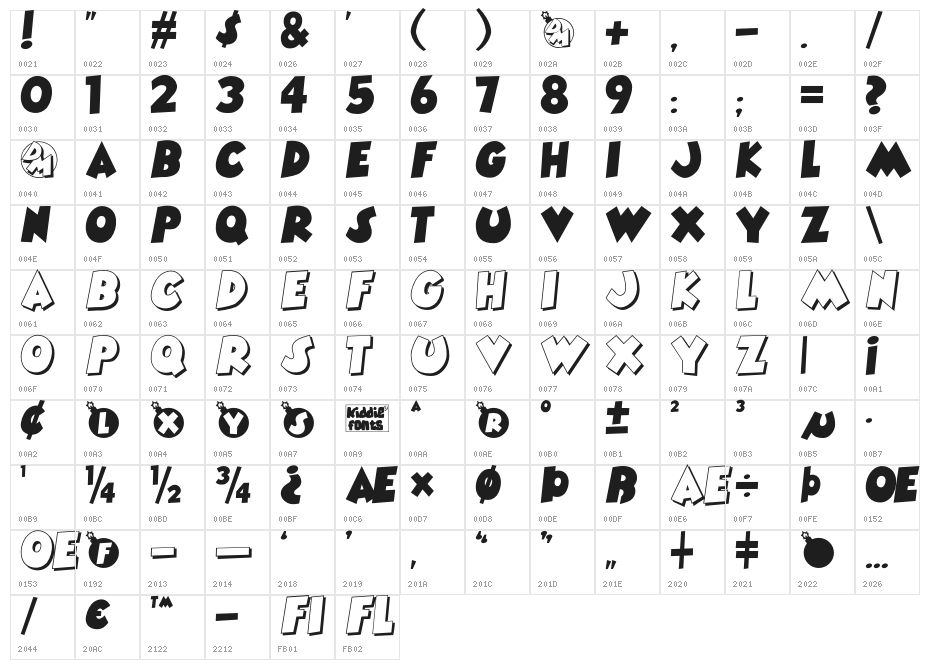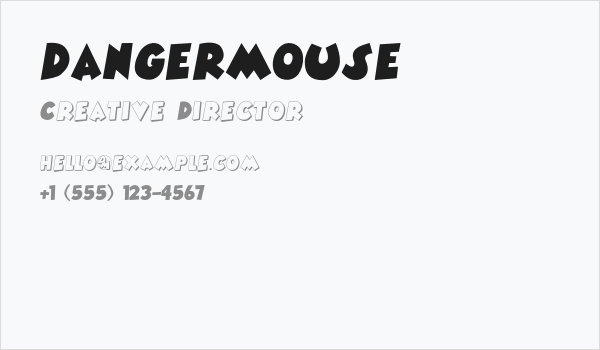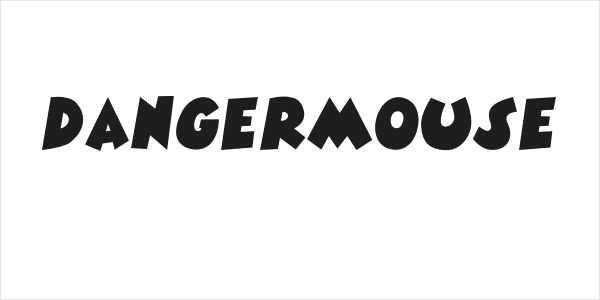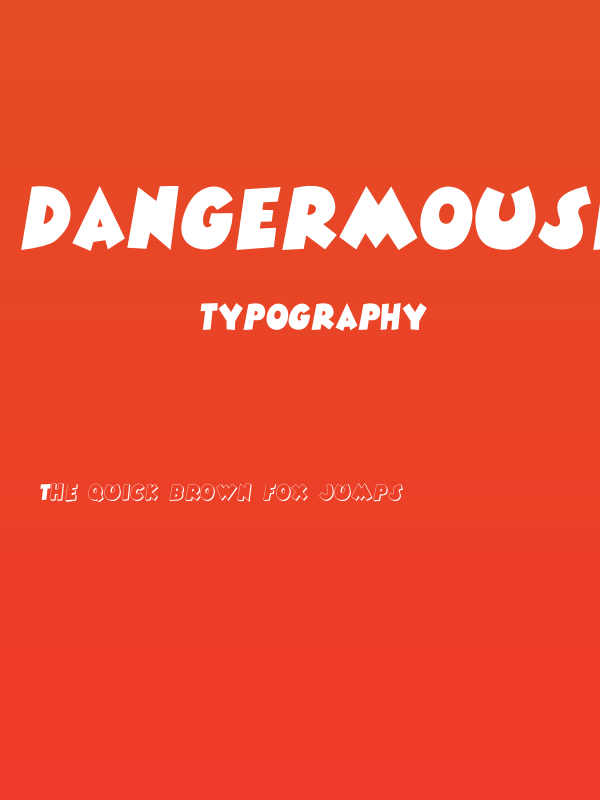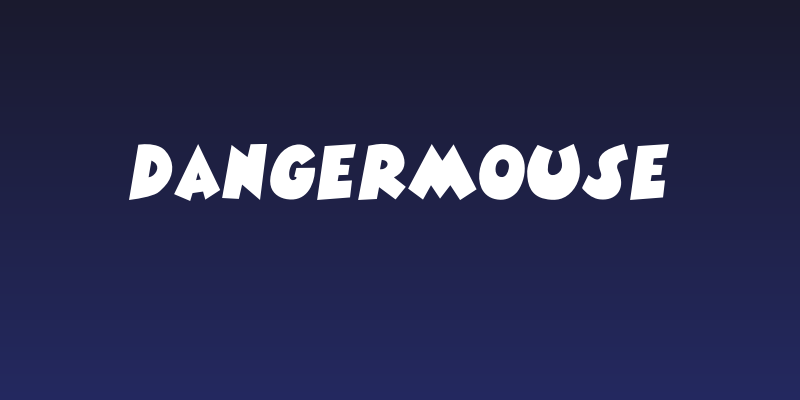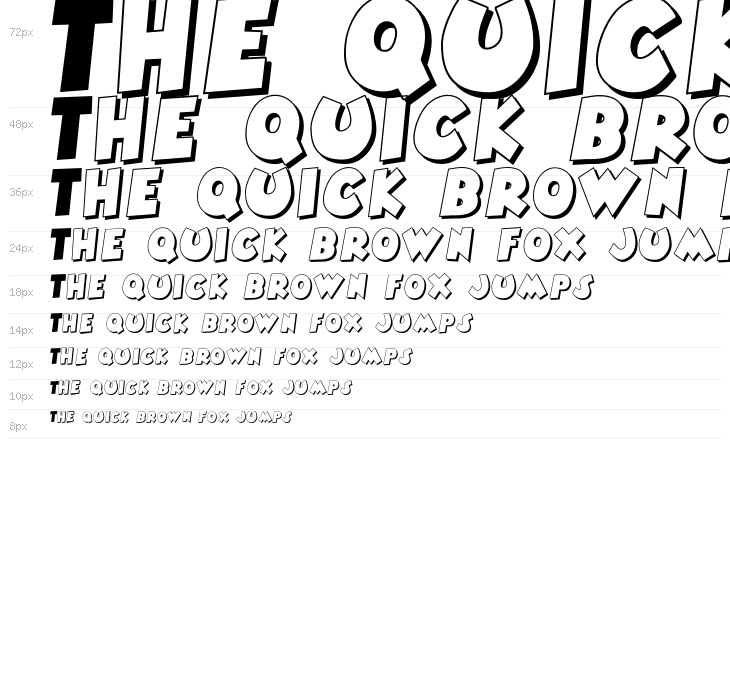
DANGERMOUSE Font
DANGERMOUSE Description
This font features bold, dynamic characters with a playful and energetic style. The uppercase letters are thick and angular, giving a sense of movement and excitement. The lowercase letters maintain a consistent style, complementing the uppercase with a slightly more compact form. Numbers are bold and prominent, ensuring clear readability. Special characters are creatively designed, adding a unique flair to the overall appearance. The font's design is reminiscent of comic book styles, making it ideal for projects that require a fun and engaging visual impact.
| Overall Style | Playful, Comic |
| Proposed Projects | Ideal for comic books, children's books, playful branding, and entertainment media. |